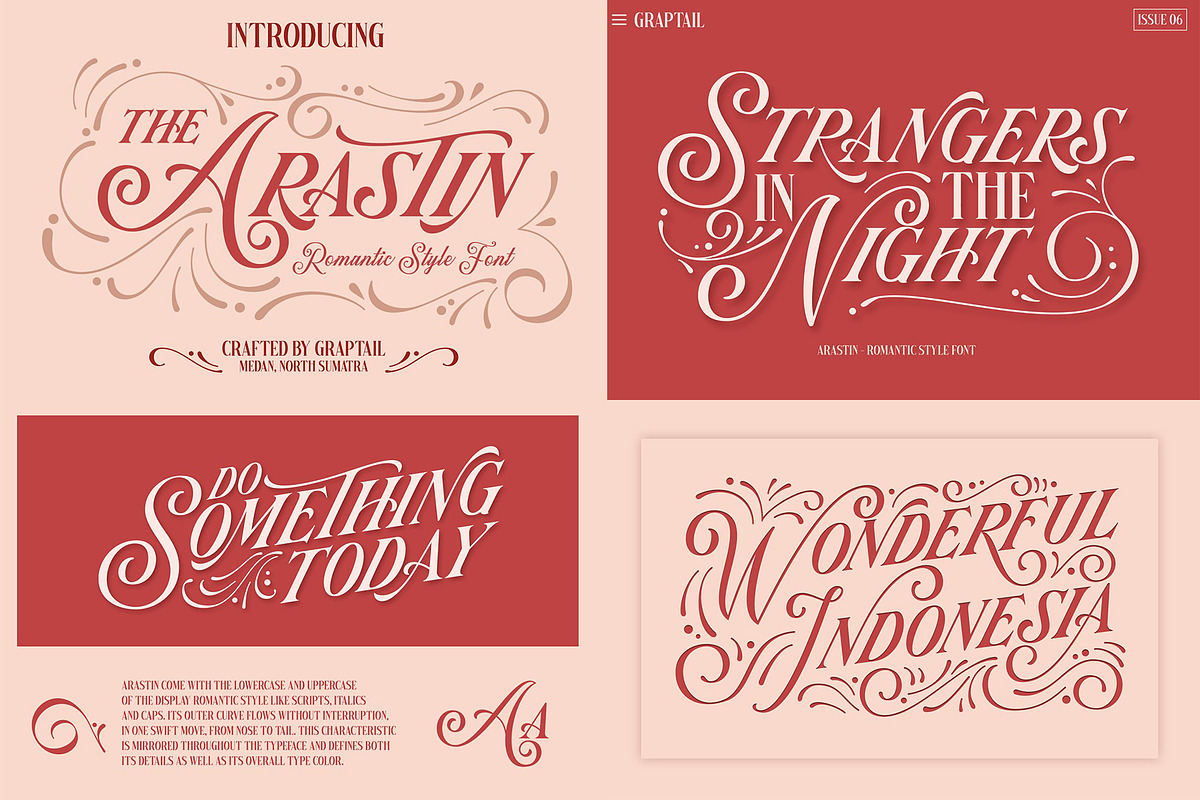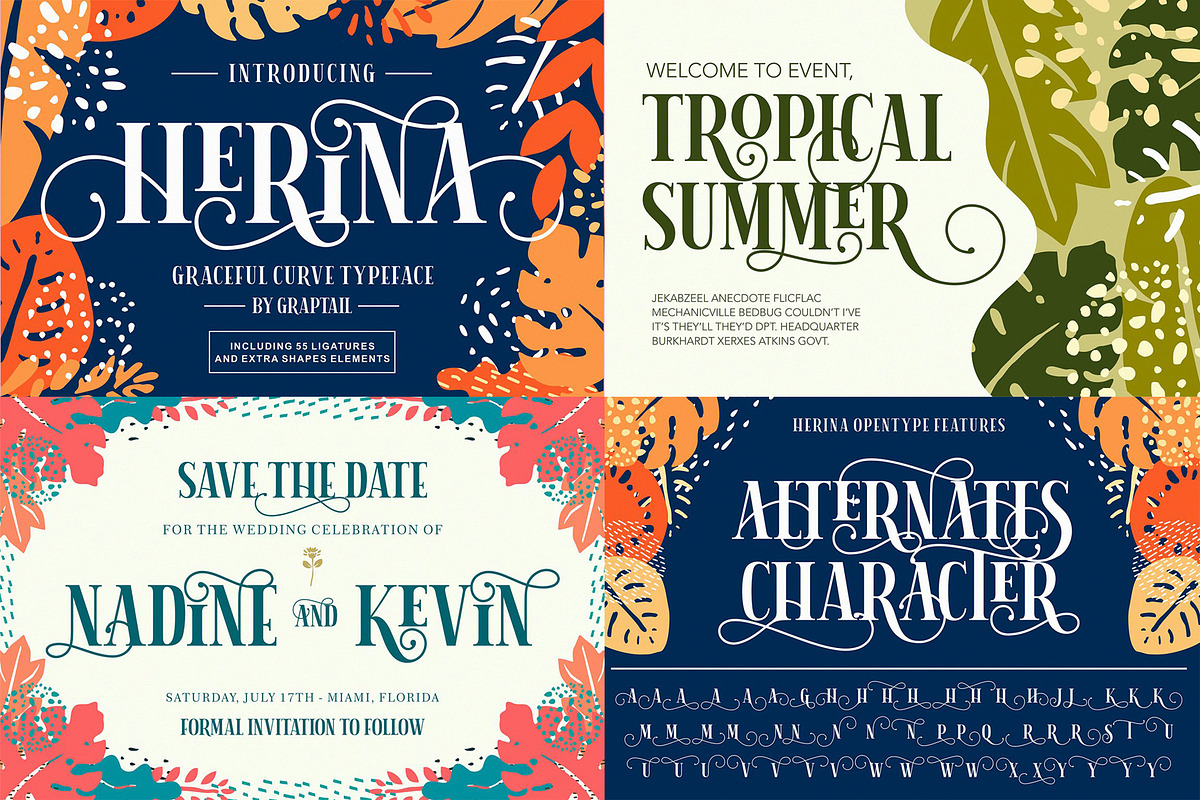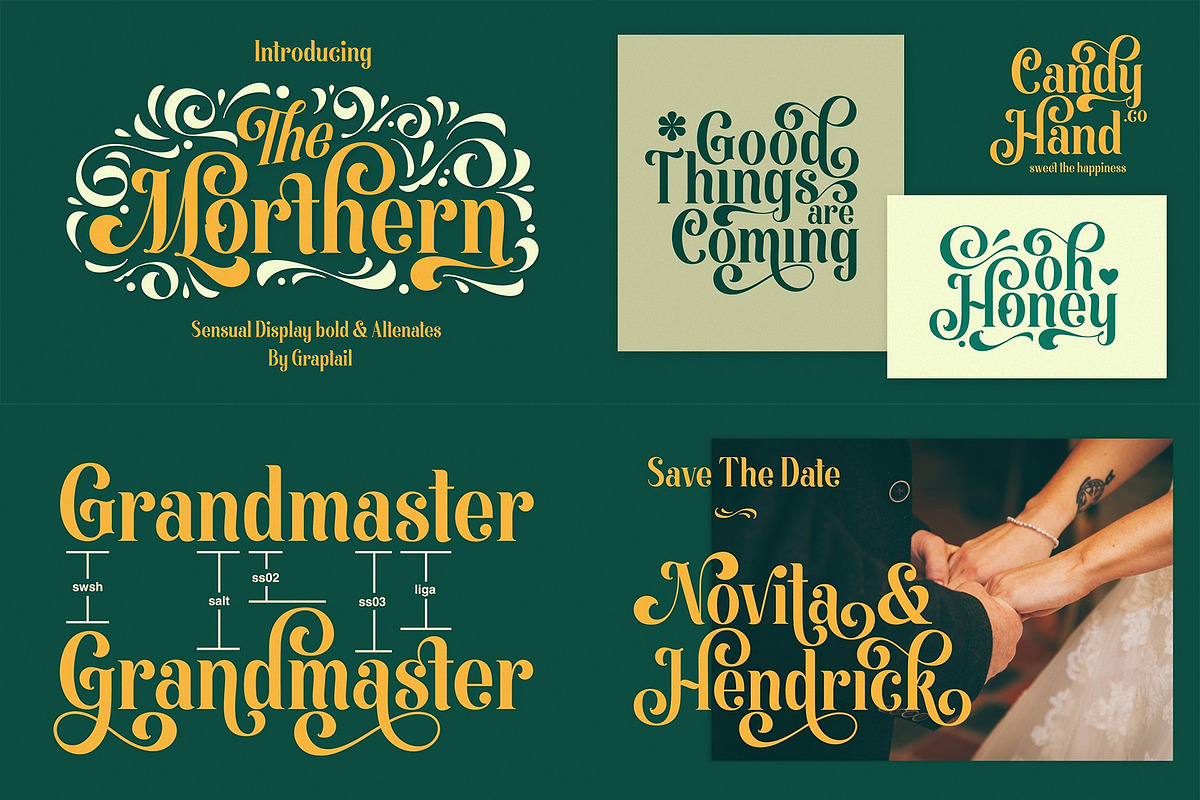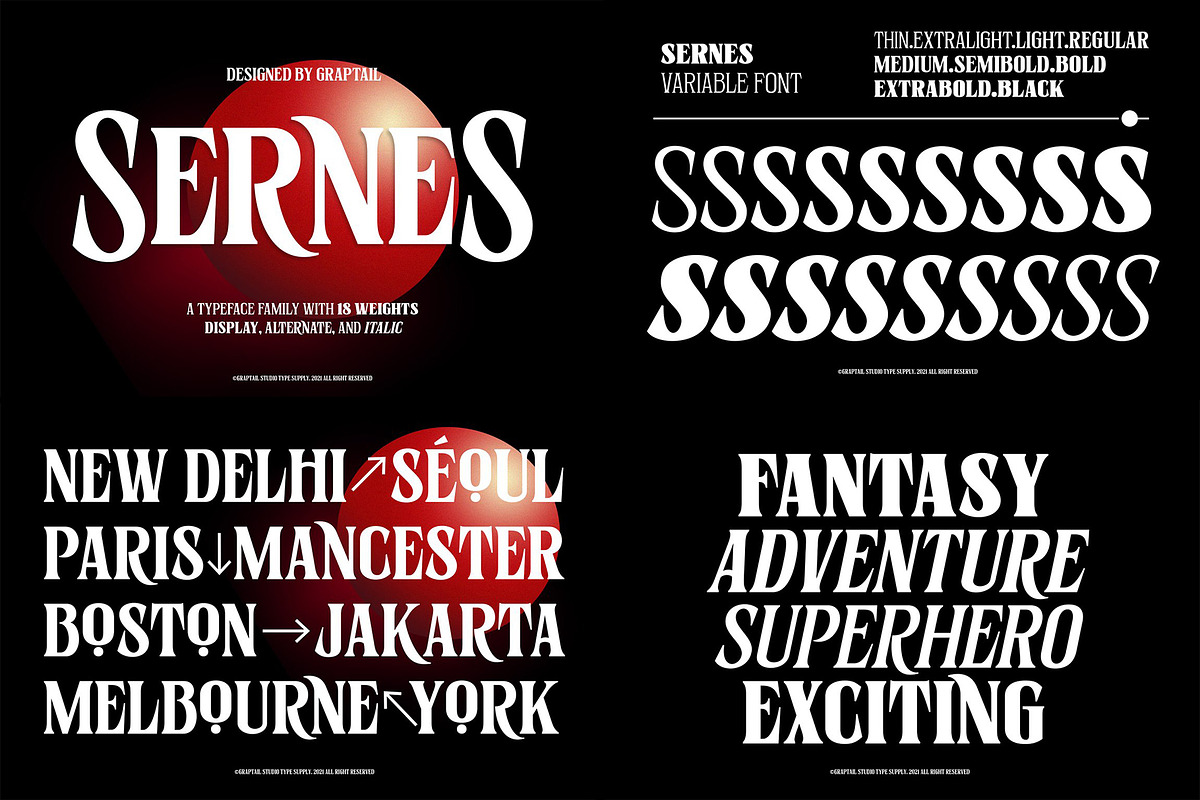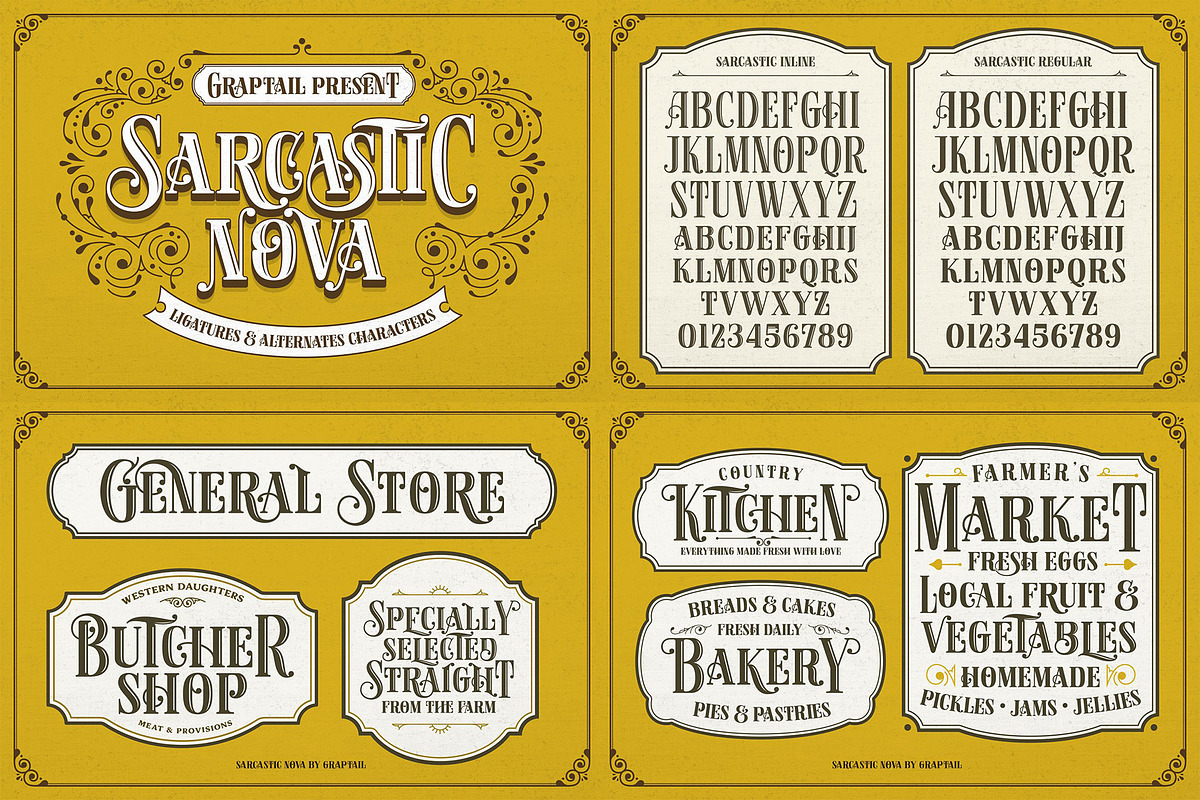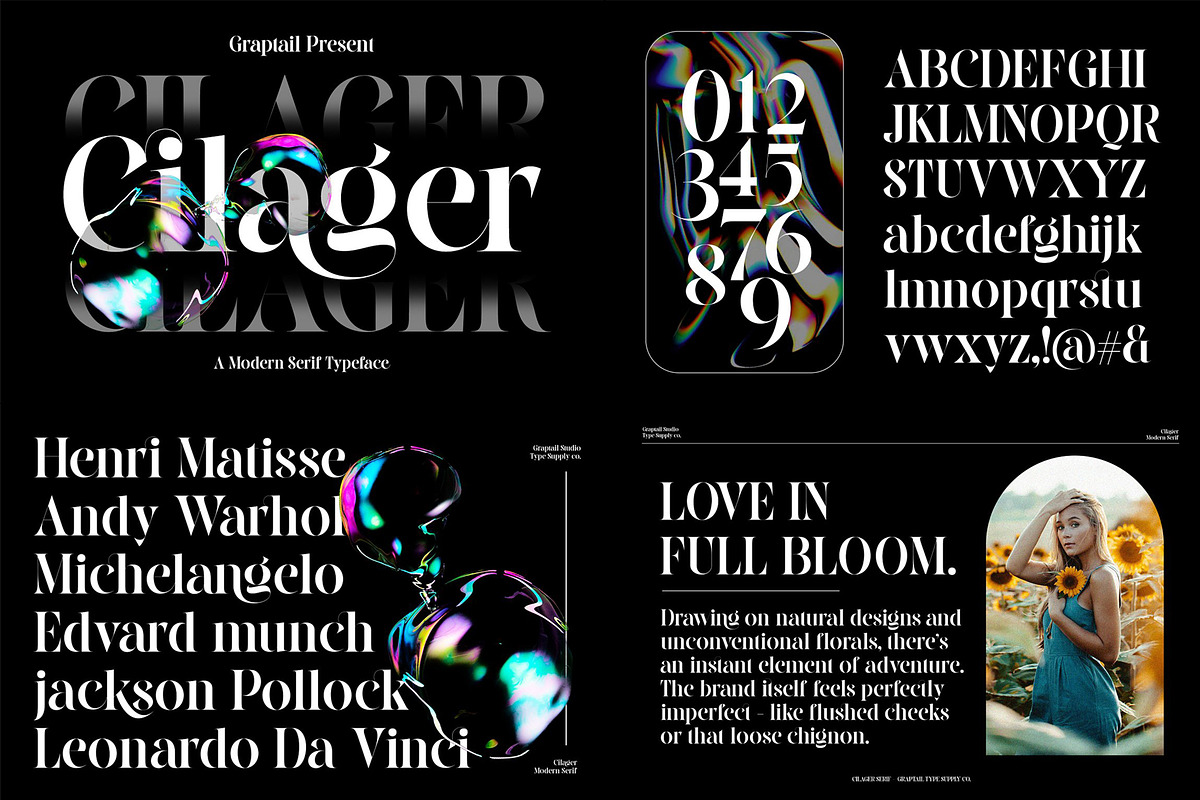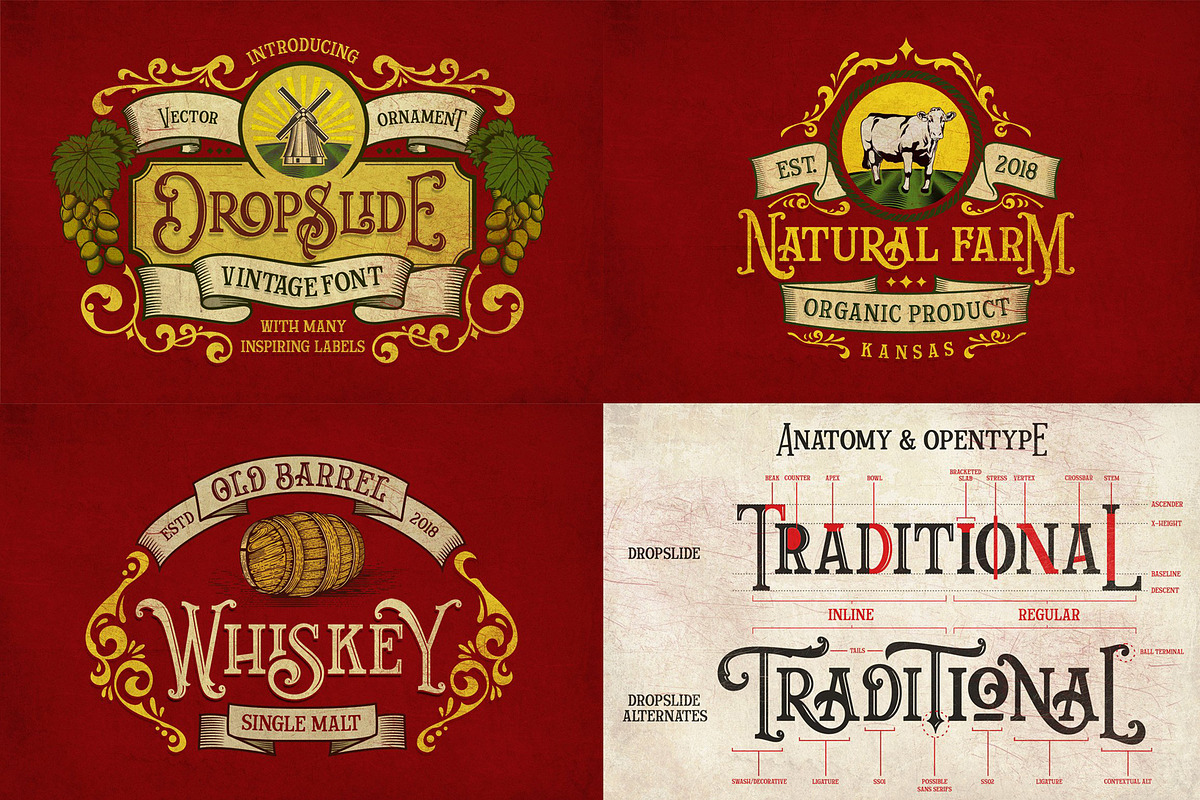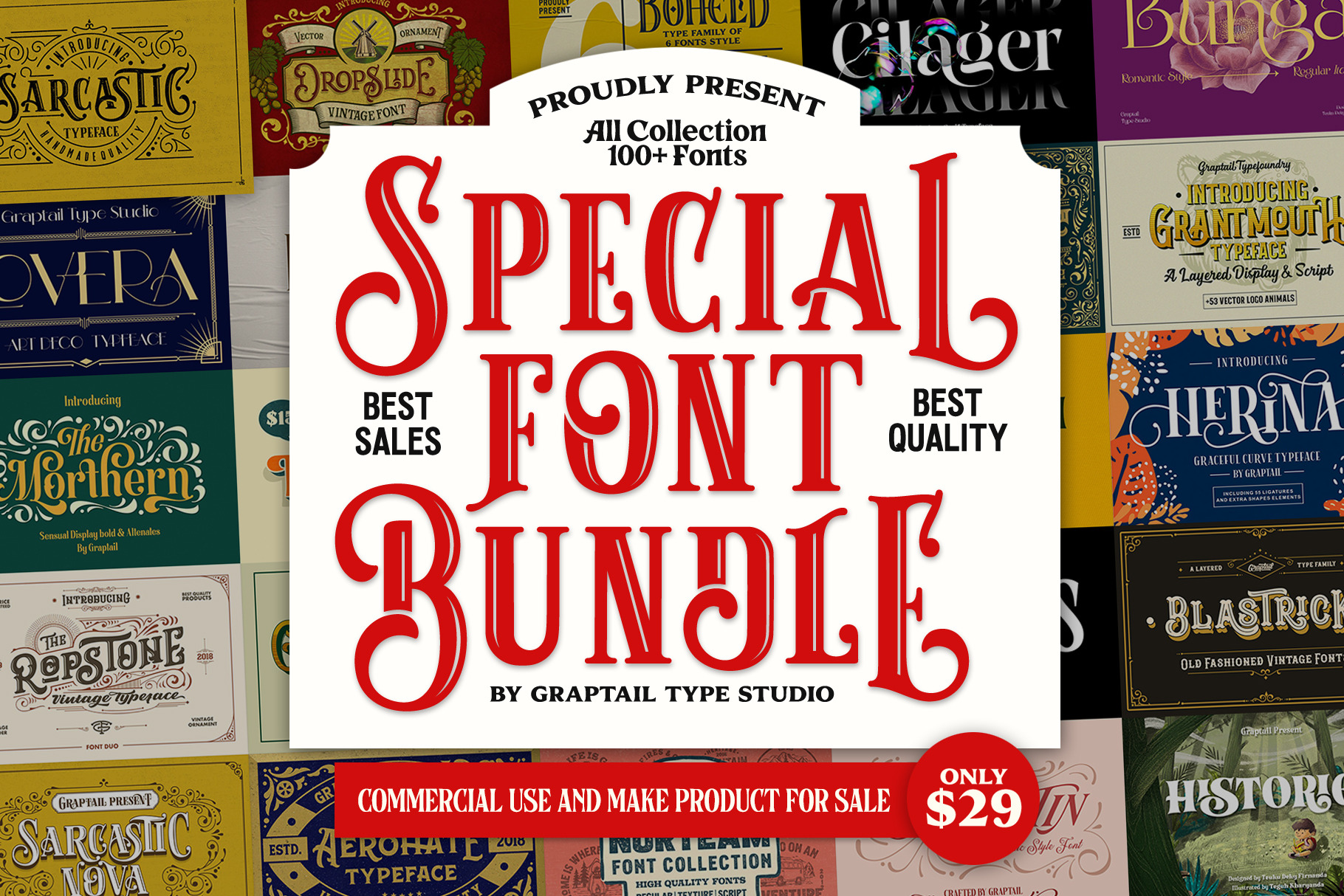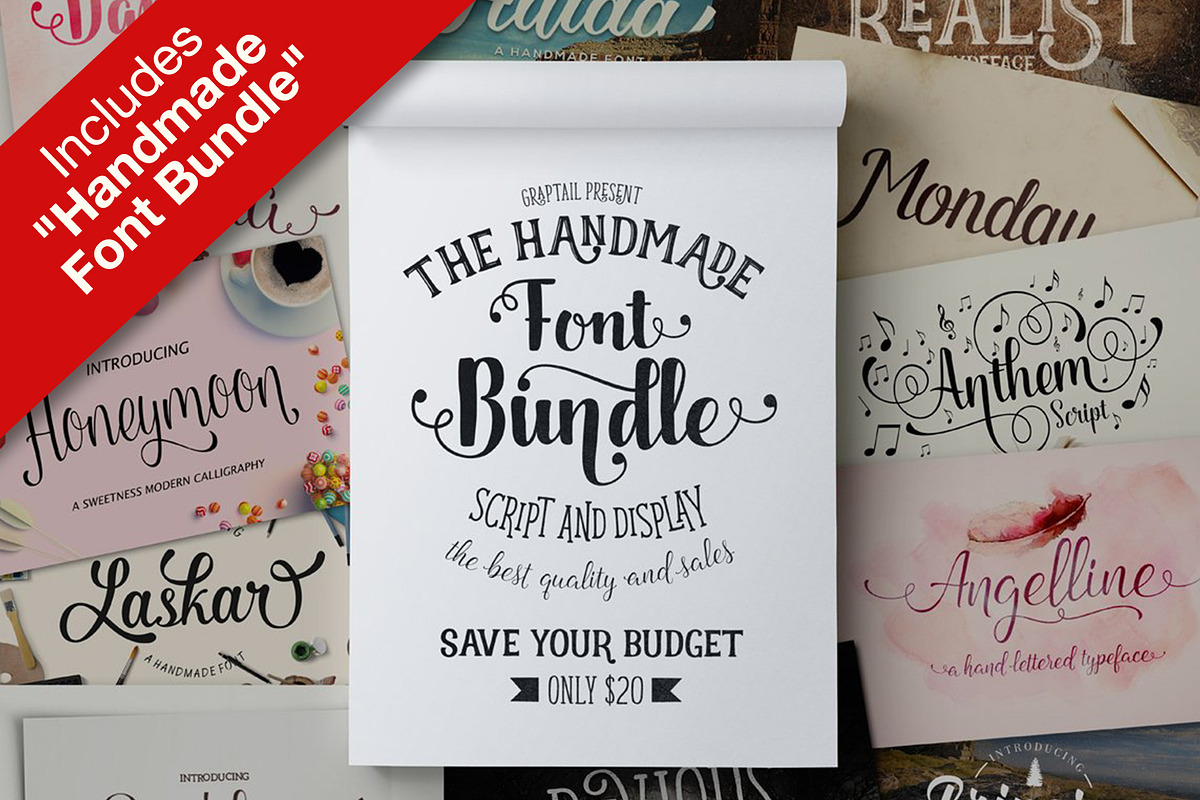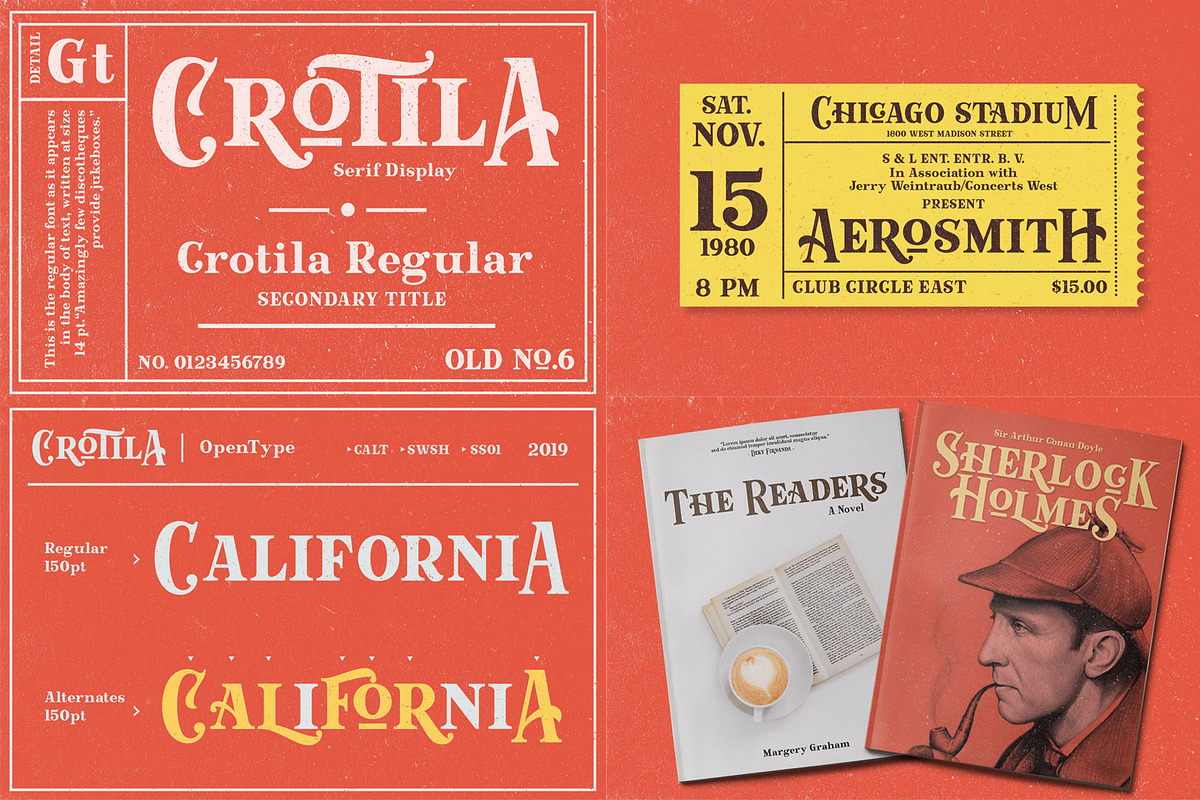
SPECIAL FONT BUNDLE + BONUS (HANDMADE FONT BUNDLE) By Graptail
This bundle is a one-time opportunity to get your hands on a plethora of best-selling and newest products.
The package includes 29 Premium Fonts + Bonus (Handmade Font Bundle) for a total of 54 FONTS. Hundreds of engines including All Alternates, Swash, Standard Ligatures, Discretionary Ligatures, Oldstyle Figures, Lining Figures, Localized Forms, Superscript, Fractions, Ordinals. It can be accessed using intelligent OpenType programs such as Adobe Illustrator, Adobe InDesign, CorelDraw, and others.
This package is perfect for greeting cards, branding, business cards, quotes, posters, stickers, blogs, logos, weddings, signage, packaging, birth announcements, photo overlays, wall art, quotes, printables, bags, t-shirts and more!
Fonts Included:
INCLUDES ( FONT BUNDLE (Graptail) : https://crmrkt.com/JxW83x )
Whoa. I had NO idea how FLIPPIN COOL this bundle was until I downloaded it and saw just HOW MUCH is included. There's a TON of fonts for the price... and they aren't just generic, blah fonts: the whole package is GREAT! Two thumbs up (three if I had three thumbs but two is all I got.)